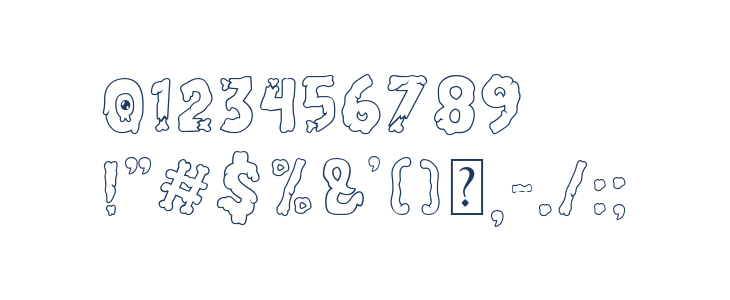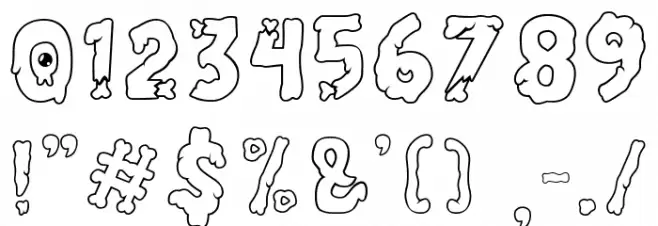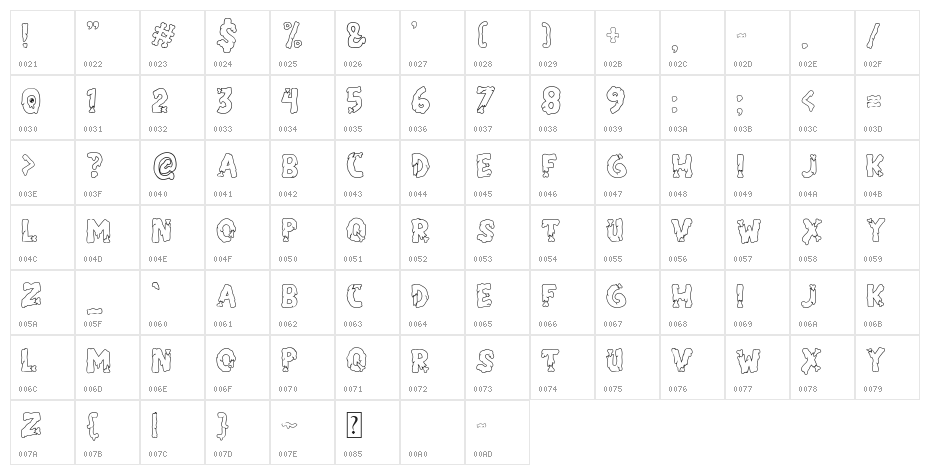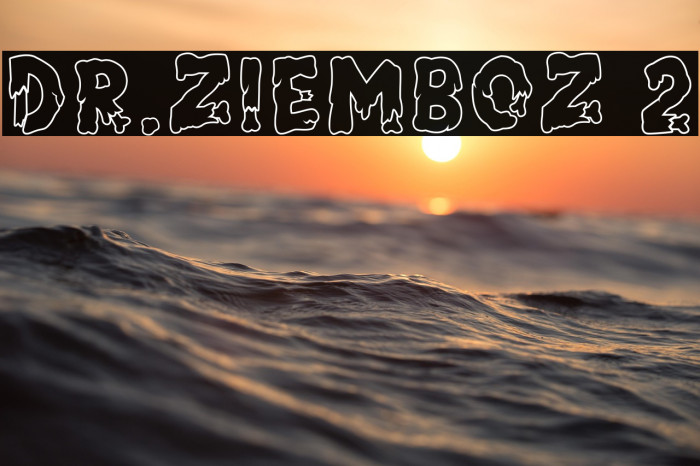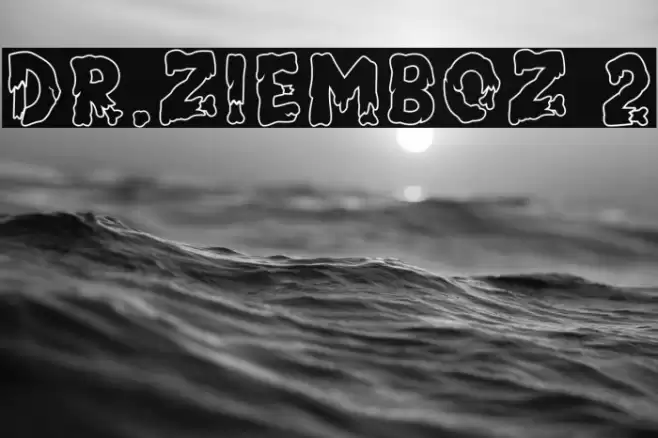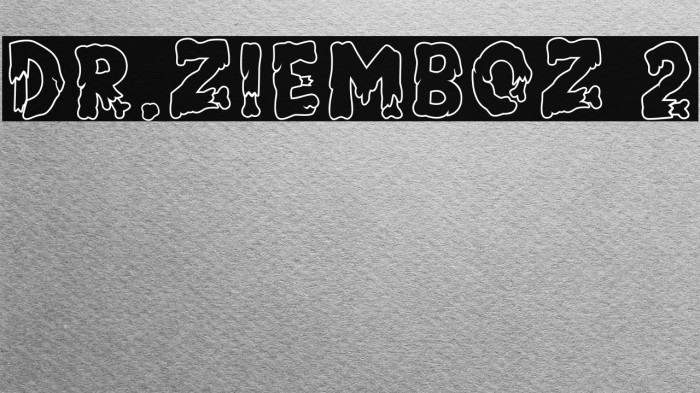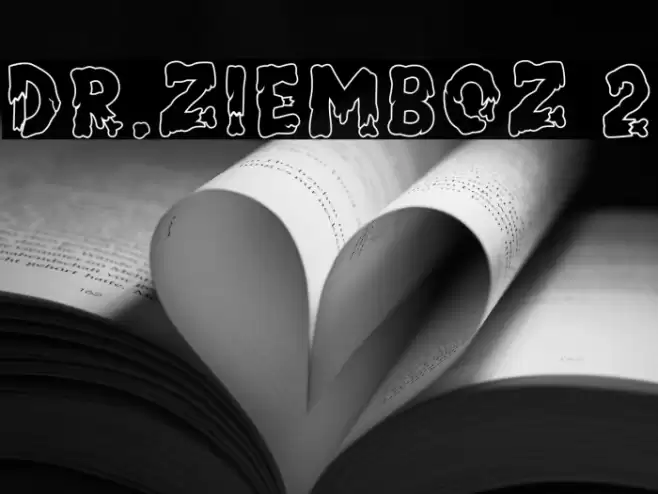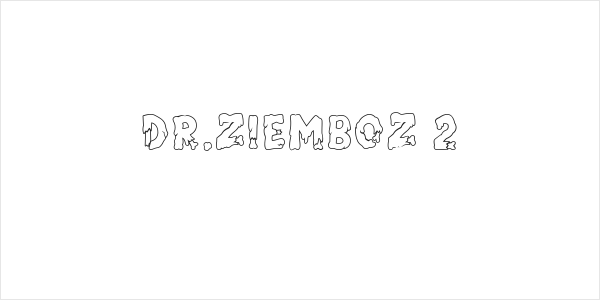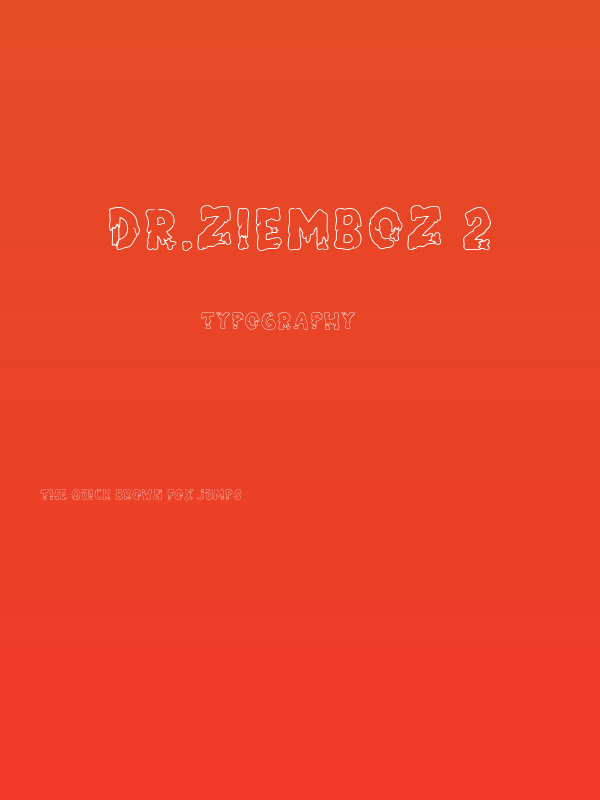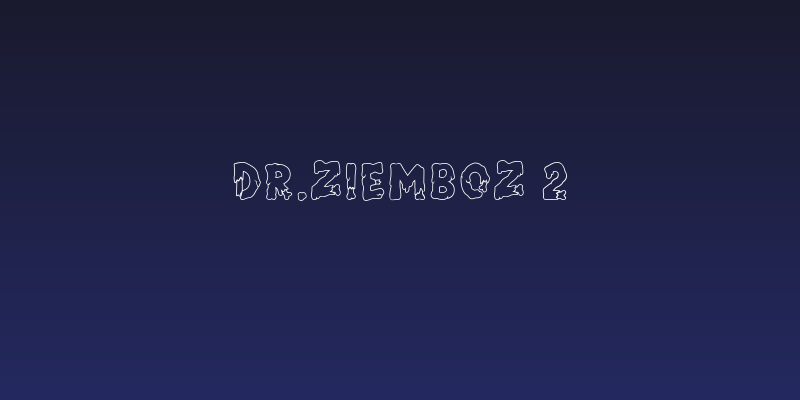
Dr.Ziemboz 2 Font
Dr.Ziemboz 2 Description
This font features a playful and quirky design with characters that appear to be melting or dripping. The letters have an irregular outline, giving them a dynamic and fun appearance. Each character is unique, with varying thicknesses and shapes that create a sense of movement. The font maintains a consistent height across all characters, ensuring readability while still embracing its unconventional style. The numbers and special characters follow the same design principles, making the entire set cohesive and visually interesting.